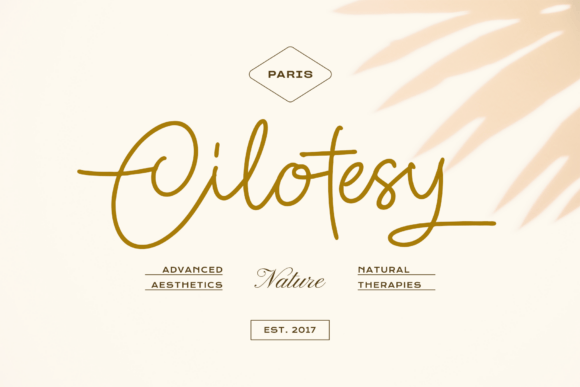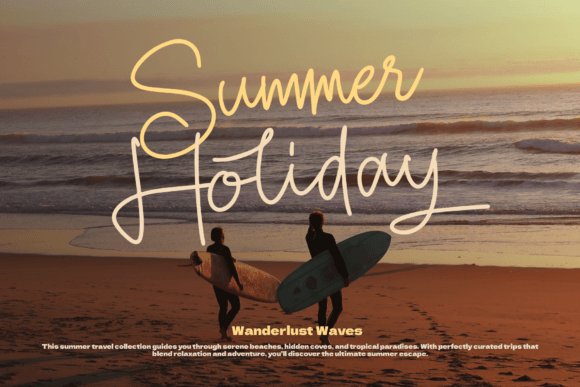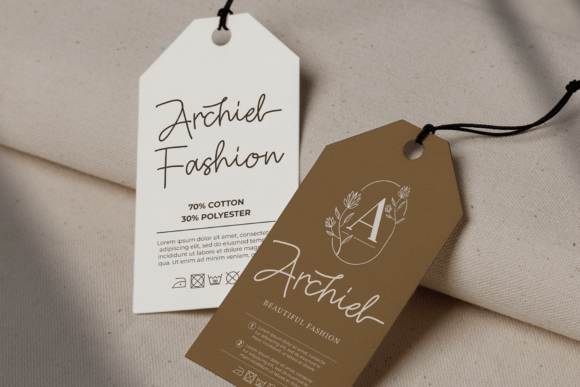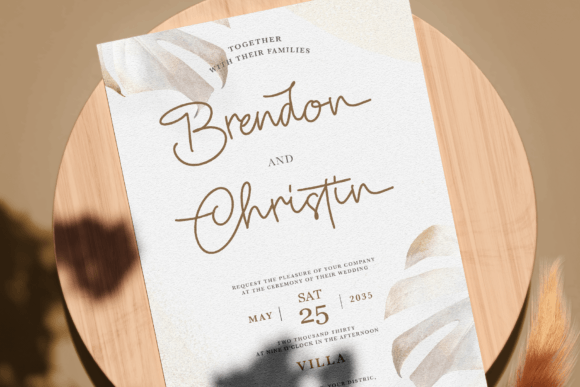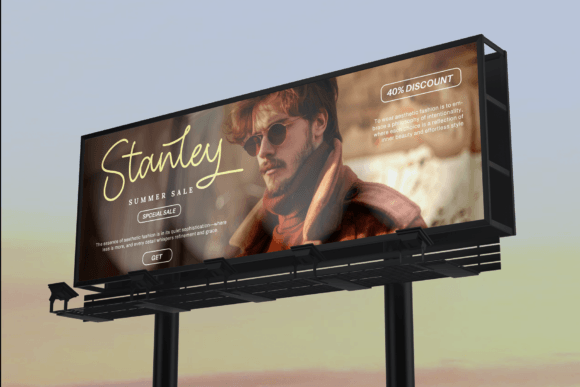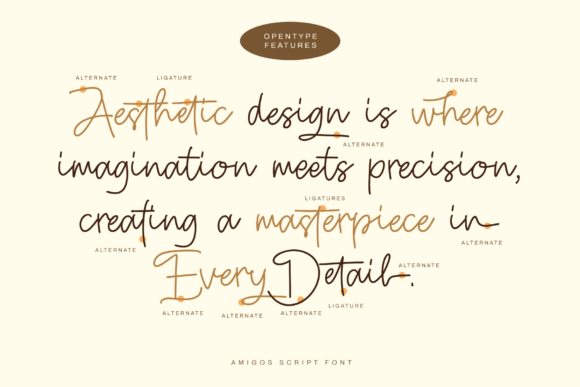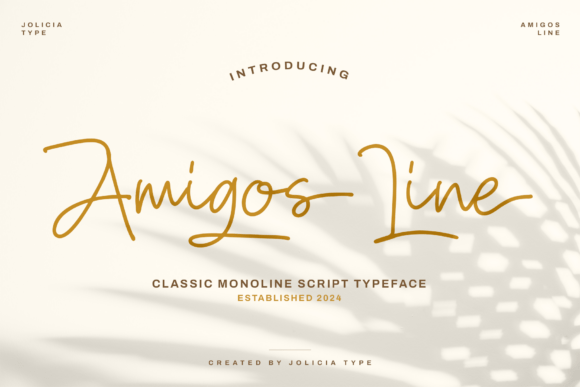
Introducing Amigos Line Font: The Perfect Handwritten Script for Your Creative Projects
In the world of design, fonts play a crucial role in conveying the tone and personality of a project. If you’re looking for a font that adds a personal touch to your creative endeavors, look no further than Amigos Line Font. This natural handwritten script font is designed to bring warmth, friendliness, and authenticity to your designs, making it perfect for a wide range of applications.
The Charm of Amigos Line Font
Amigos Line Font boasts a smooth flow and genuine hand-drawn style that sets it apart from other fonts. Its elegant, cursive lines and carefully crafted letterforms create a sense of movement and fluidity, giving your designs a dynamic and lively feel. Whether you’re working on a branding project, invitation, or social media graphic, Amigos Line Font is sure to add a touch of personality and whimsy.
Key Features of Amigos Line Font
• Natural Handwritten Style: Amigos Line Font is designed to mimic the look and feel of handwritten script, giving your designs a personal and authentic touch.
• Smooth Flow: The font’s smooth, cursive lines create a sense of movement and fluidity, making it perfect for designs that require a dynamic feel.
• Elegant and Versatile: Amigos Line Font is suitable for a wide range of applications, from branding and invitations to social media graphics and more.
• Easy to Read: Despite its elegant, cursive style, Amigos Line Font is easy to read, making it perfect for designs that require a clear and concise message.
Amigos Line Font is a versatile font that’s perfect for designers and crafters who want to add a personal touch to their projects. Whether you’re creating:
• Branding Materials: Use Amigos Line Font to create unique and memorable logos, business cards, and letterheads that reflect your brand’s personality.
• Invitations and Stationery: Add a touch of elegance and whimsy to your invitations, greeting cards, and stationery with Amigos Line Font.
• Social Media Graphics: Use Amigos Line Font to create eye-catching social media graphics, quotes, and posters that stand out from the crowd.
• Digital and Print Media: Amigos Line Font is suitable for a wide range of digital and print media, including brochures, flyers, and magazines.
Why Choose Amigos Line Font?
With so many fonts available, why choose Amigos Line Font? Here are just a few reasons:
• Unique and Authentic: Amigos Line Font offers a unique and authentic handwritten style that’s sure to set your designs apart.
• Elegant and Versatile: The font’s elegant, cursive style makes it suitable for a wide range of applications and design styles.
If you’re looking for a font that adds a personal touch to your creative projects, Amigos Line Font is the perfect choice. With its natural handwritten style, smooth flow, and elegant lines, this font is sure to bring warmth, friendliness, and authenticity to your designs. Whether you’re a designer, crafter, or DIY enthusiast, Amigos Line Font is a versatile and stylish addition to your font collection.